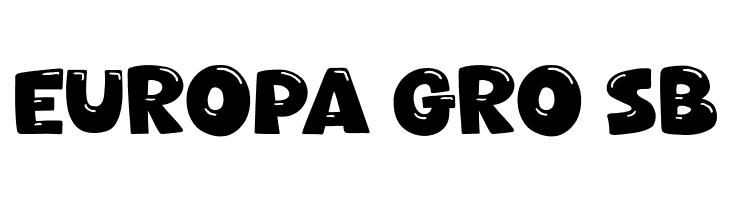
A bold, outlined font with a playful, three-dimensional effect.
A playful, bold font with a lively, cartoonish style and hand-drawn feel.
A bold, playful font with a hand-drawn, textured style.
A bold, hand-drawn font with a playful, outlined style.
A playful, sketch-style font with bold outlines and textured interiors.
A playful, cartoonish font with bold, exaggerated characters and whimsical elements.
A playful, hand-drawn font with bold, irregular outlines.
A playful, bold, and bubbly font with a glossy, liquid-like appearance.
A playful, bold font with whimsical, hand-drawn letterforms.
A playful, bold font with rounded, thick strokes and a whimsical style.
A bold, playful font with cartoon-like characters and a dynamic, energetic style.
Playful and bold cartoon-style font.
Bold, playful font with 3D extruded effect.
A bold, playful typeface with rounded, cartoonish characters.
A bold, playful font with rounded, cartoonish characters.
A bold, playful typeface with cartoonish, exaggerated letterforms.
A bold, playful font with italicized, cartoonish characters.
A bold, playful font with slanted, dynamic letterforms.
A bold, playful outline font with a comic, stone-like appearance.
A playful, bold font with rounded strokes and a comic-inspired style.
A playful, bold font with rounded, thick strokes and a comic book style.
A playful, bold font with rounded characters and a cartoonish style.
A bold, playful typeface with a cartoonish and lively style.
A bold, playful font with a cartoonish style and exaggerated curves.
A playful, bold font with irregular, cartoonish shapes and dynamic style.
A bold, 3D extruded font with a playful, cartoonish style.
A playful, bold font with cartoonish, exaggerated letterforms.
A playful, comic-inspired font with bold, rounded edges and a hand-drawn feel.
A bold, playful comic book style font with thick outlines and dynamic curves.
A playful, bold, and rounded font with a hand-drawn, comic book style.
A playful, hand-drawn font with bold, rounded characters and a whimsical style.
A playful, bubbly font with a cartoonish, hand-drawn style.
A playful, bold font with a bubbly, cartoonish style and rounded strokes.
A playful, bold font with a cartoonish style and rounded edges.